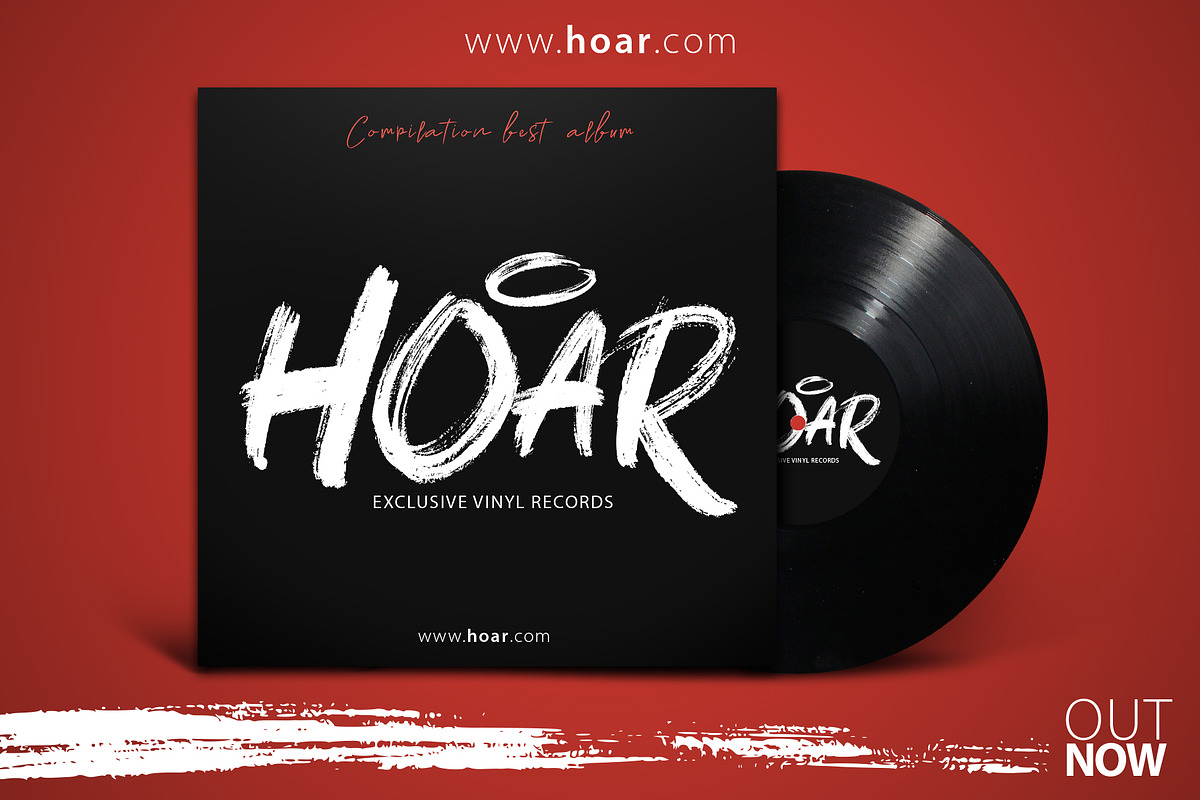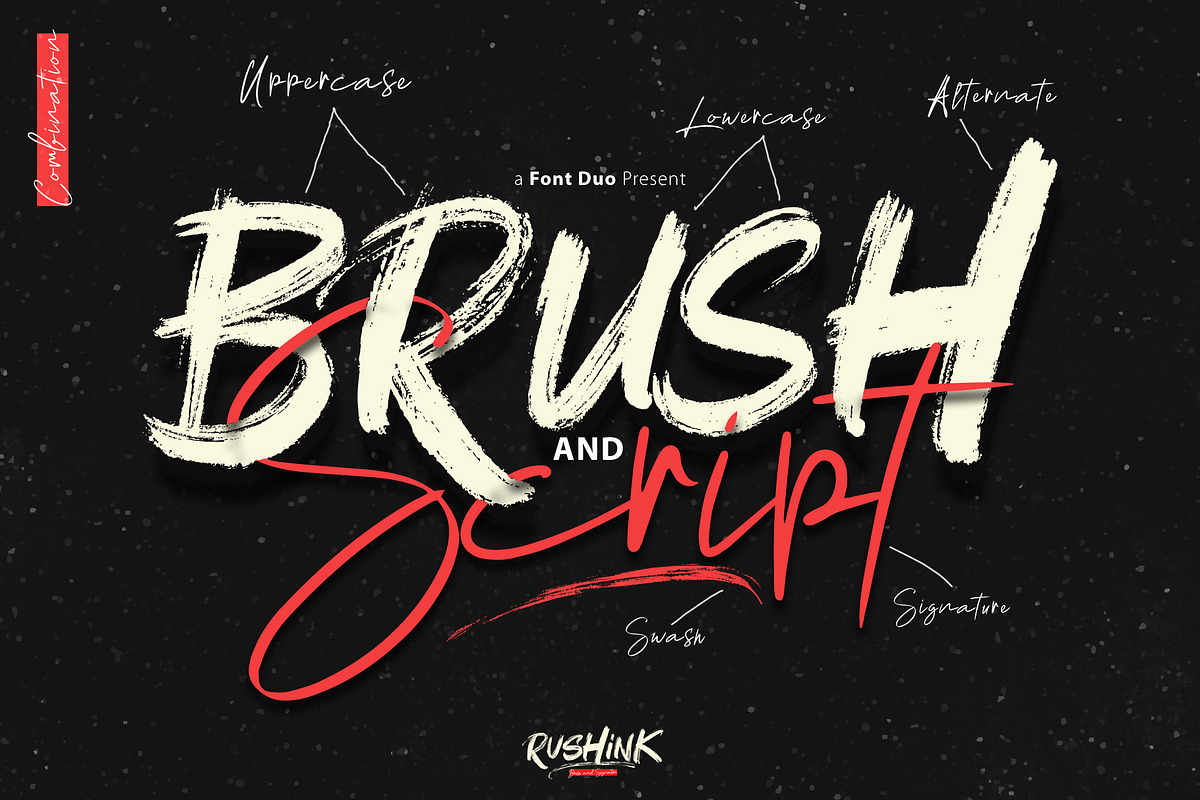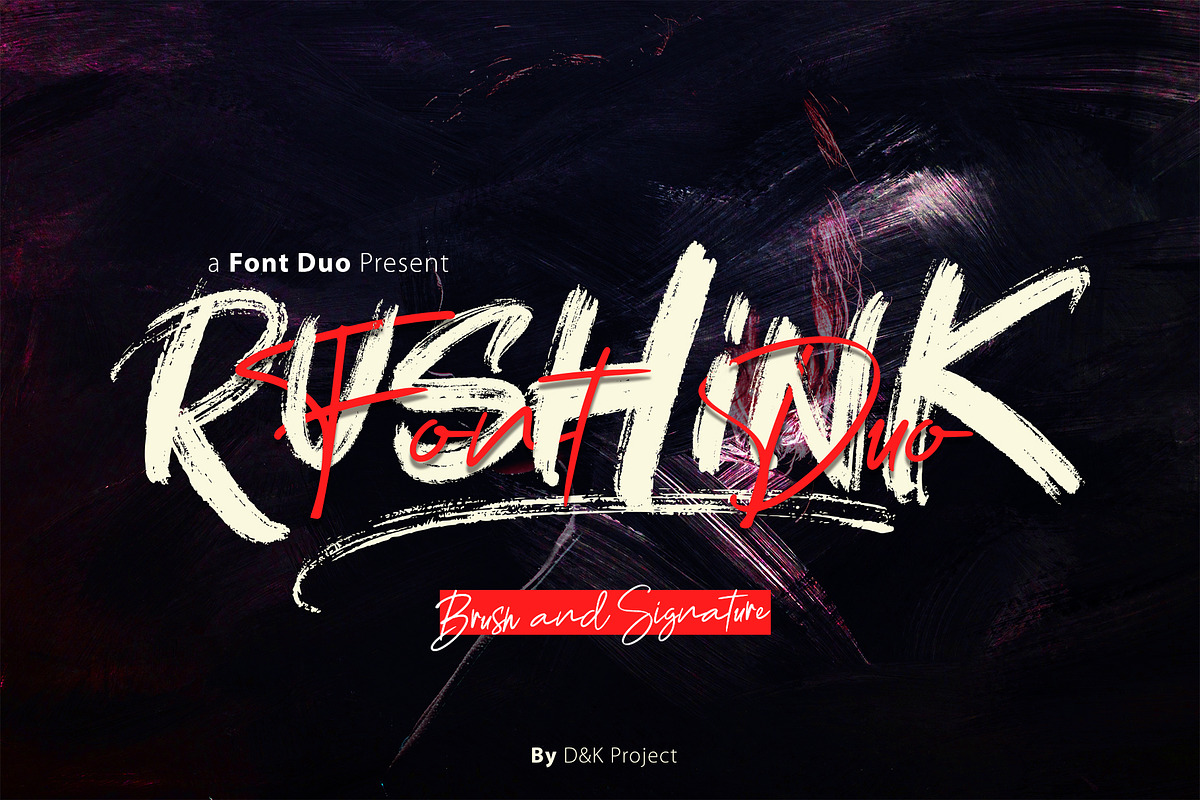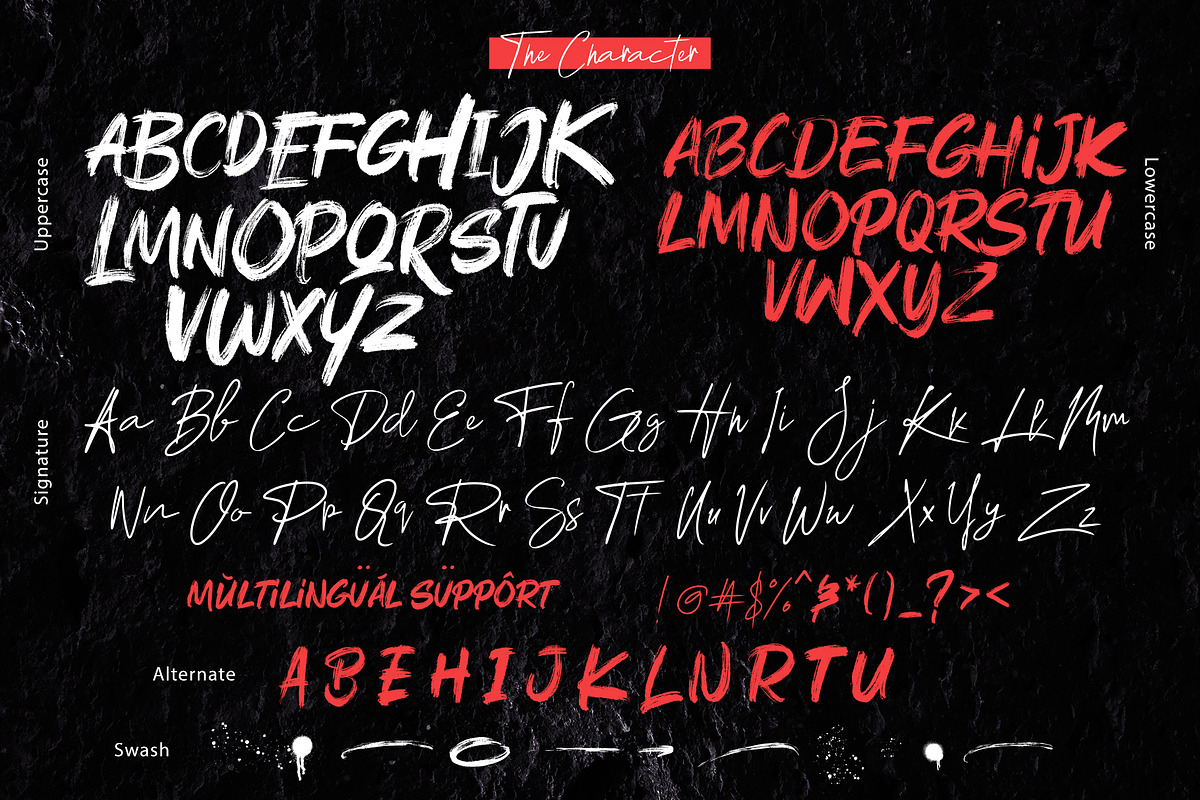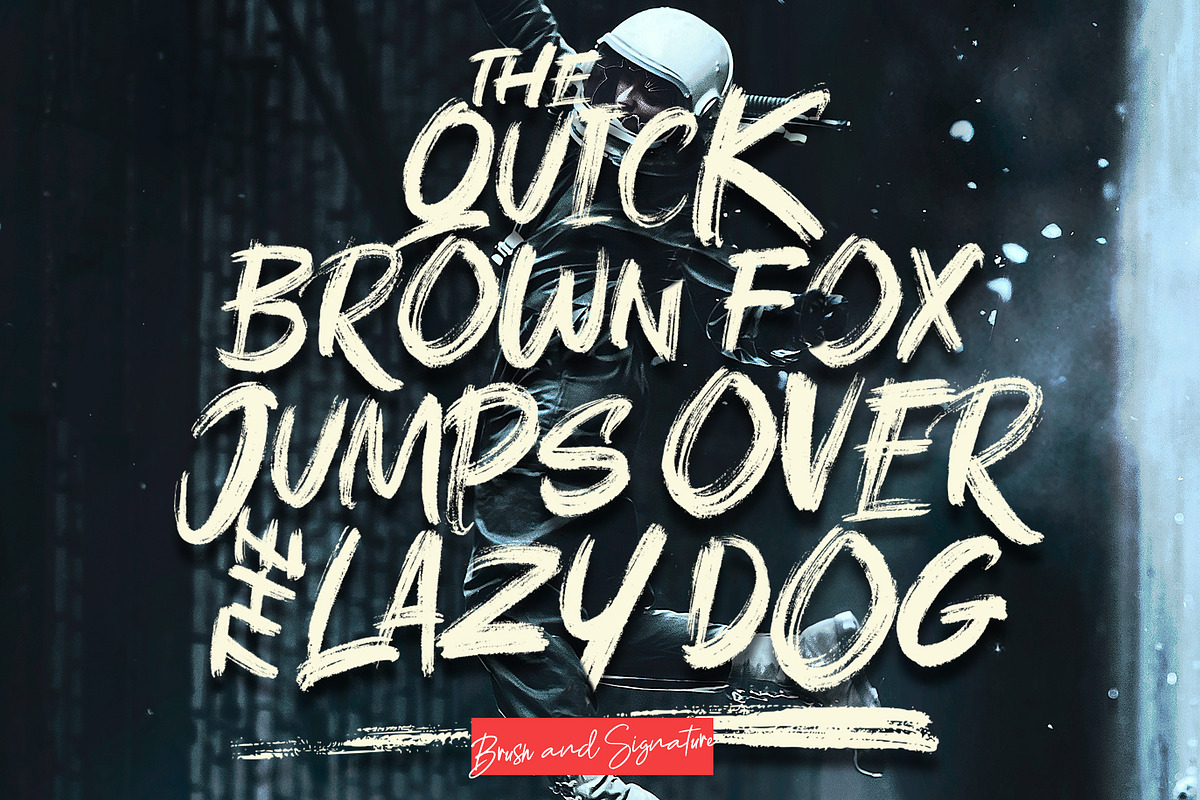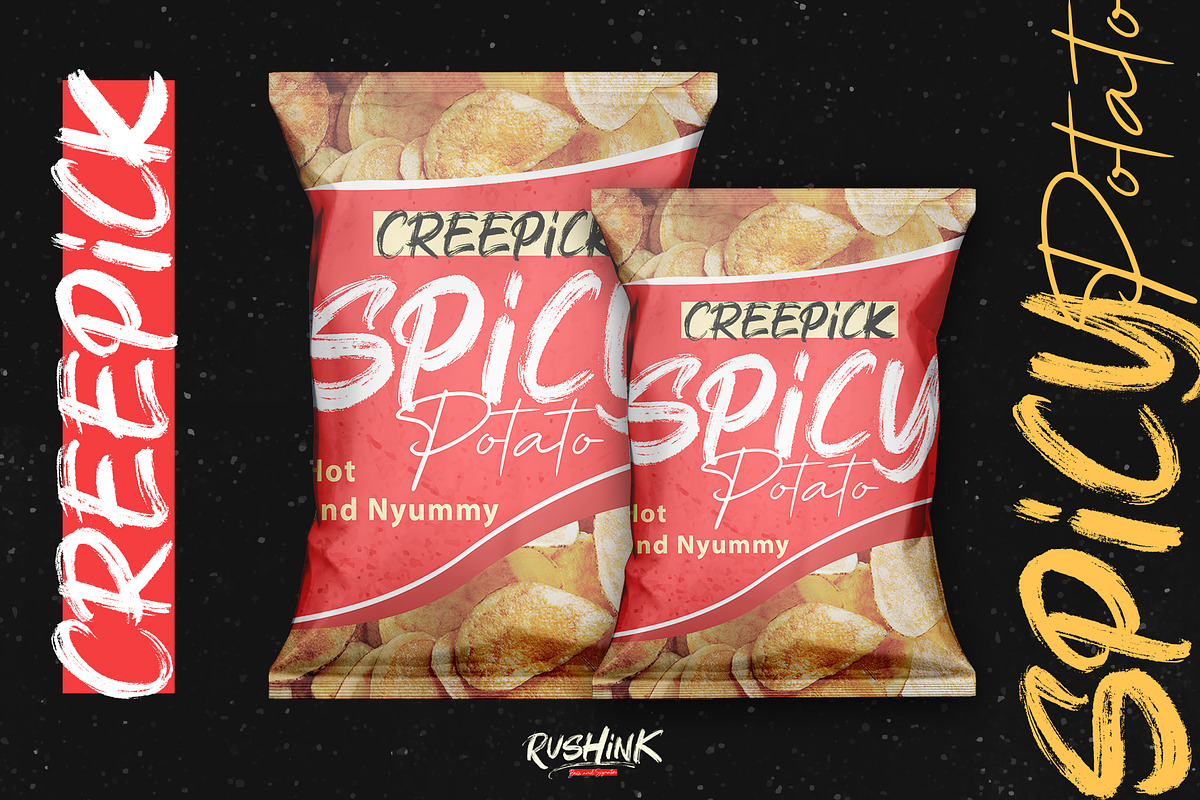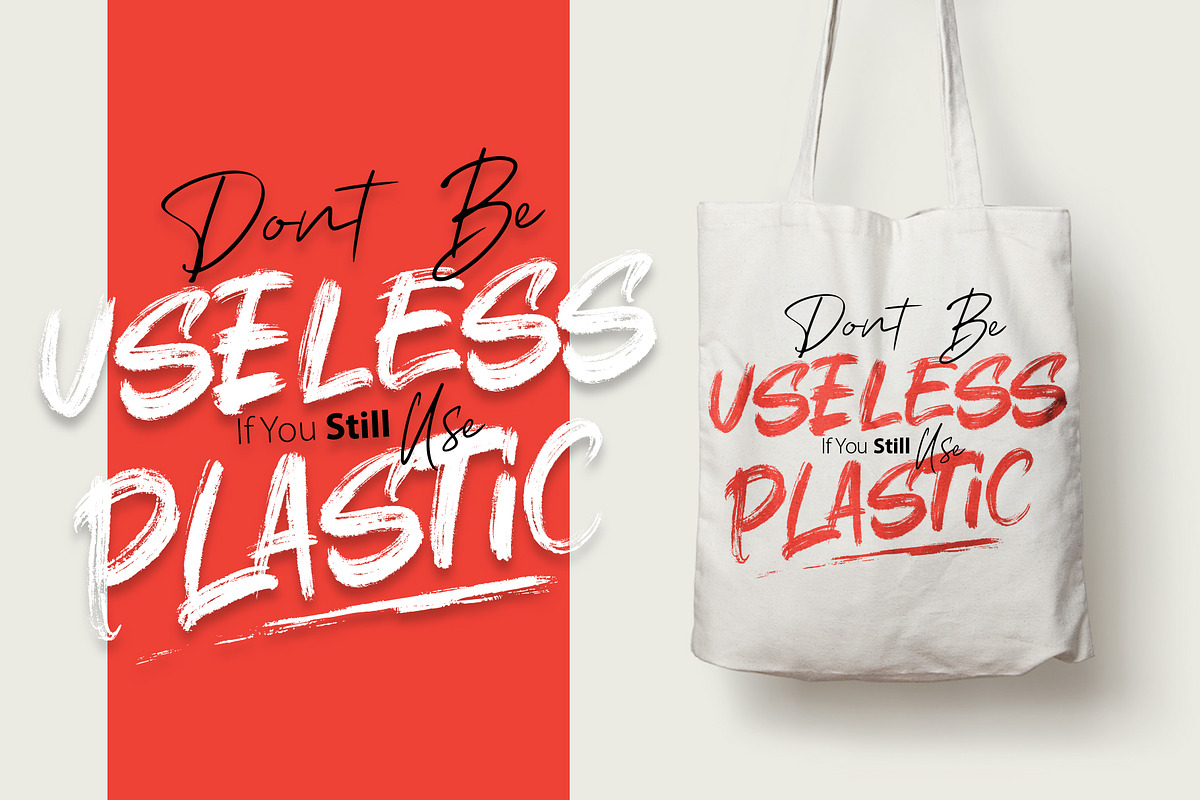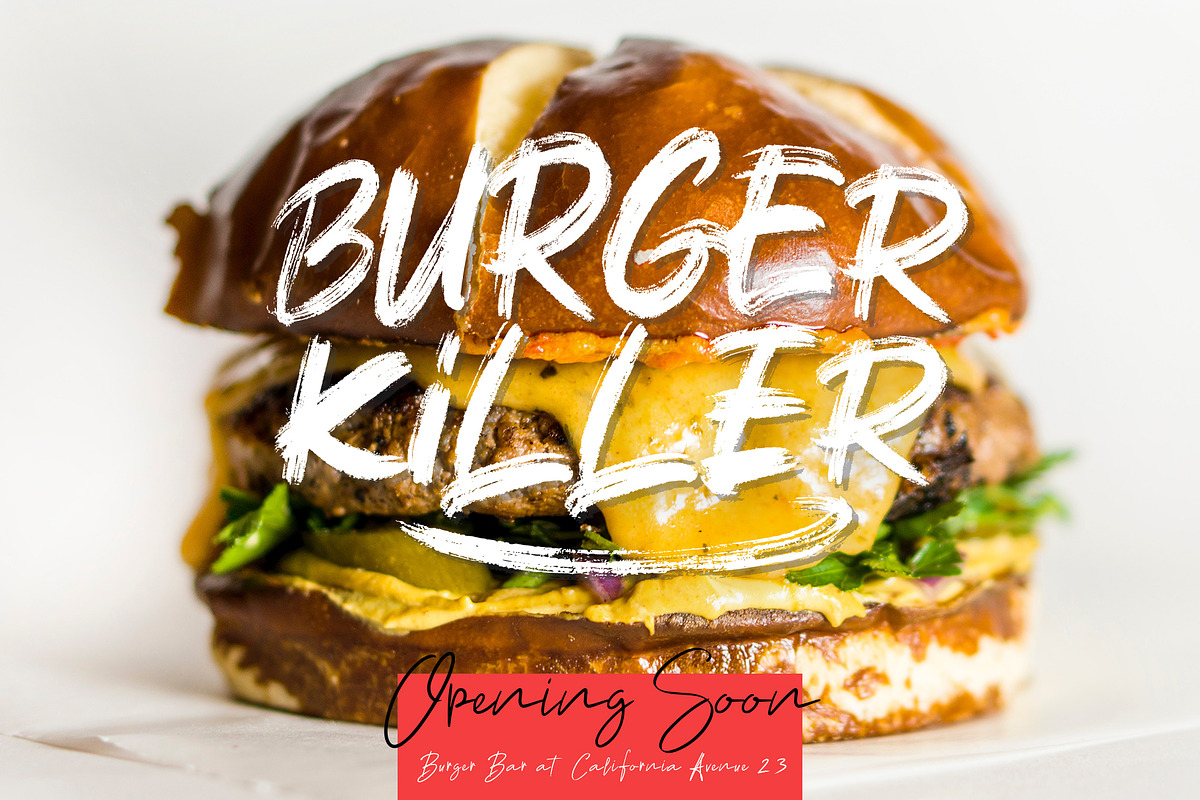
Rushink Font Duo | Brush & Signature
This Rushink is a Brush and signature duo font, coupled with a complete brush and signature font for your font collection. A strong touch on the brush and charming handwriting on the signature is perfect for combining with your design project.
Rushink is a very powerful font with a realistic brush touch that is suitable for design covers, clothing, packaging and more.
4 font style [ Brush, Signature, Swash, and Italic version ]
UPPERCASE and lowercase style
Panctuation and numeral